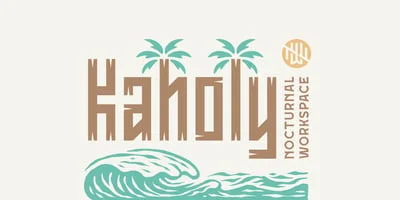
Kaholy Font
Kaholy Font is perfect for sacred text publications, spiritual meditation center branding, religious ceremony programs, holy scripture study materials, divine worship communications, and reverent devotional projects. Its sanctified character makes it ideal for religious institutions, spiritual retreat centers, faith-based organizations, theological seminaries, and any application requiring hallowed typography that conveys sacred holiness, divine reverence, and the profound spiritual depth of religious traditions and holy experiences.
Kaholy Font is exciting because it captures the essence of sacred holiness and divine reverence through spiritually crafted letterforms that embody the transcendent beauty and profound sanctity found in religious worship and spiritual contemplation. Its holy proportions and sacred details reflect the reverent atmosphere of divine worship and the transformative power of spiritual connection, making it perfect for organizations dedicated to fostering sacred experiences and spiritual growth. The font's holy character transforms communications into vessels of divine grace.
Kaholy Font family includes spiritually-inspired weight variations typically featuring Light, Regular, Medium, and Bold options with sacred styling that maintains religious authenticity. The family often incorporates holy symbols, spiritual ornaments, and divine elements designed for religious applications, providing designers with comprehensive tools for creating authentic, holiness-focused typographic compositions.
When selecting sacred religious typography solutions, Kaholy Font represents an exceptional choice for spiritual and devotional projects. This reverent typeface brings instant sacred authenticity to any design, making it invaluable for religious organizations, spiritual teachers, and faith communities celebrating divine holiness. Whether you're developing sacred worship materials, creating spiritual education content, or designing religious ceremony programs, Kaholy Font provides the divine reverence and sacred authenticity essential for honoring holy traditions in today's spiritually-seeking religious marketplace.